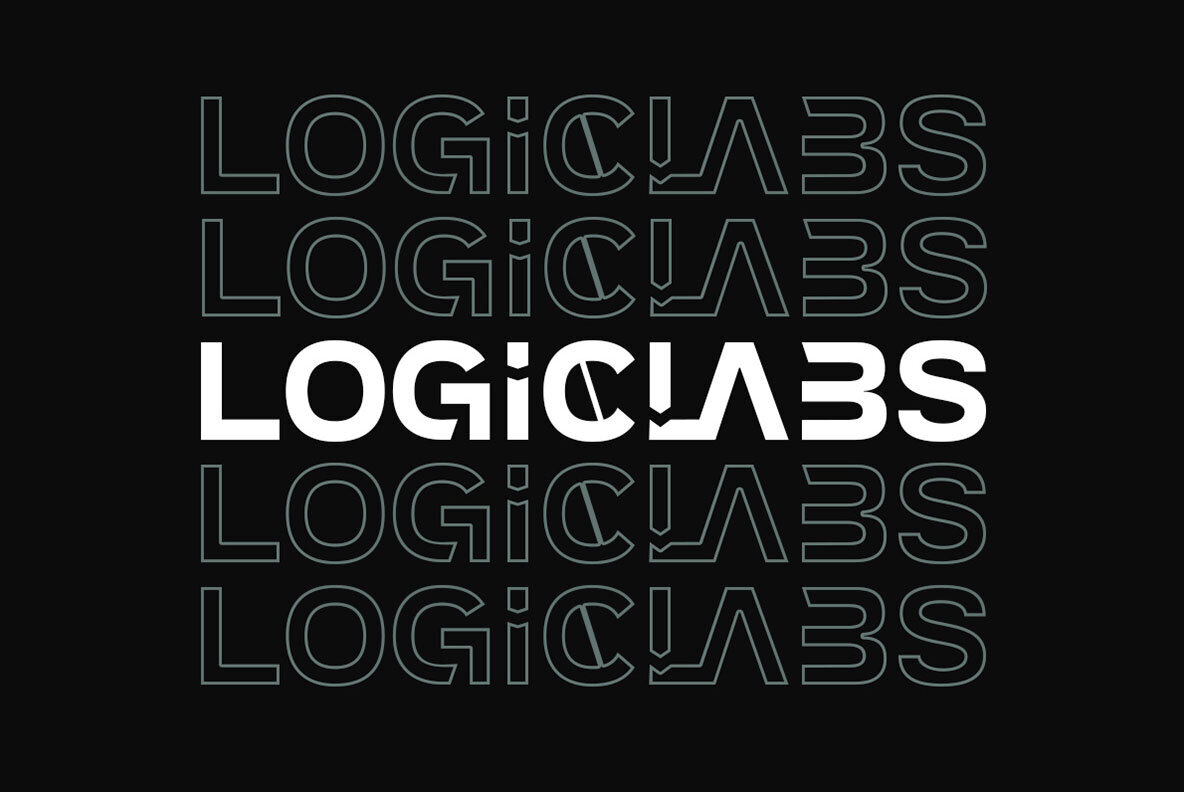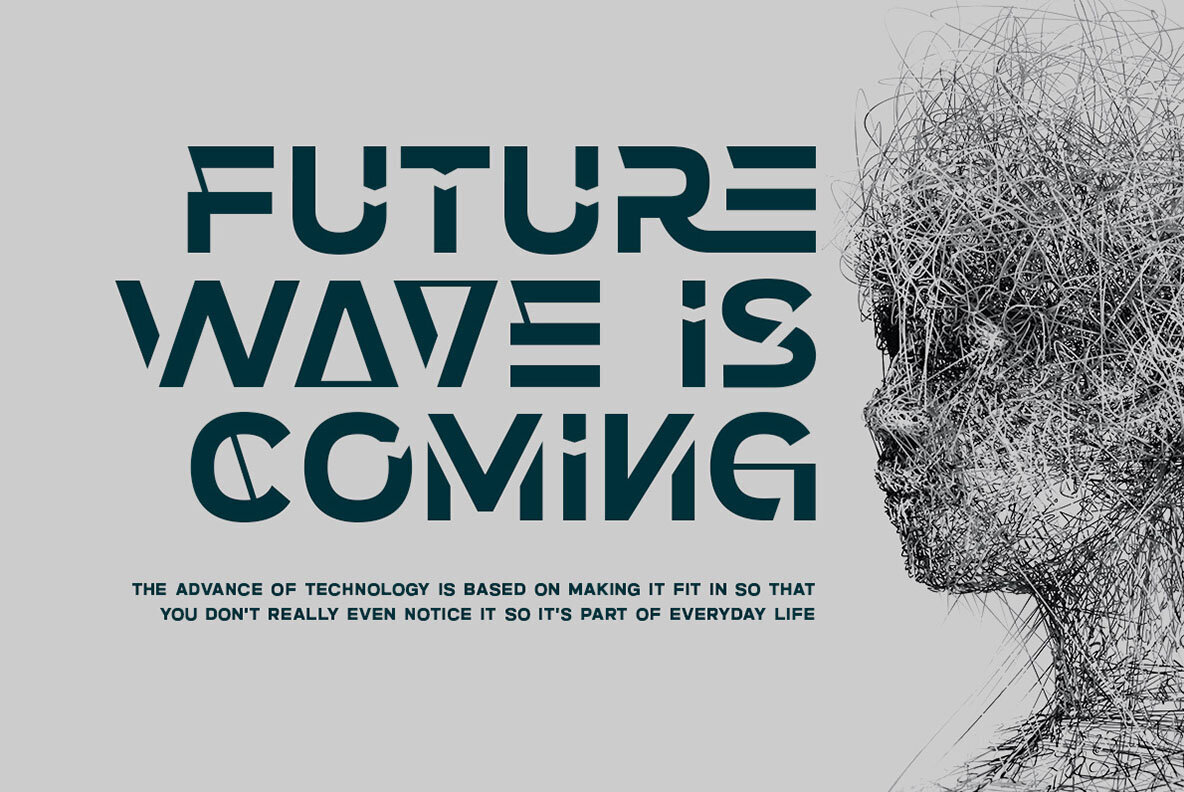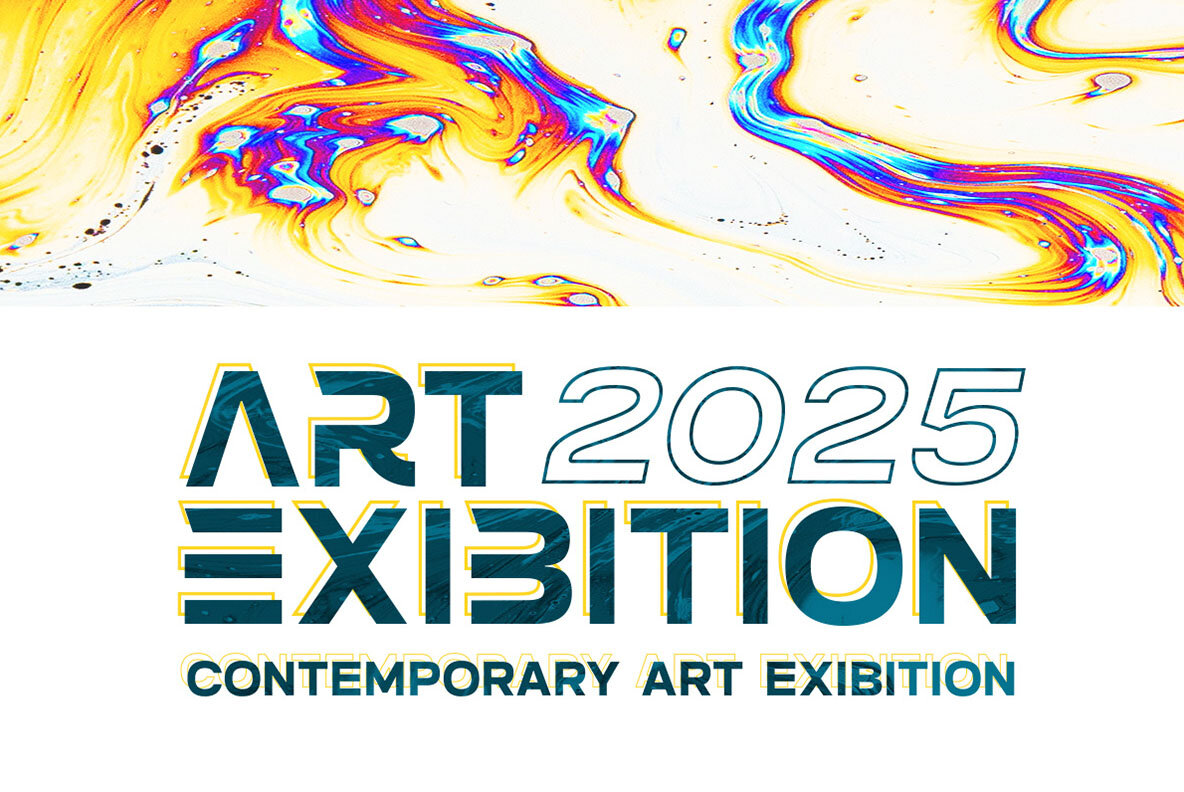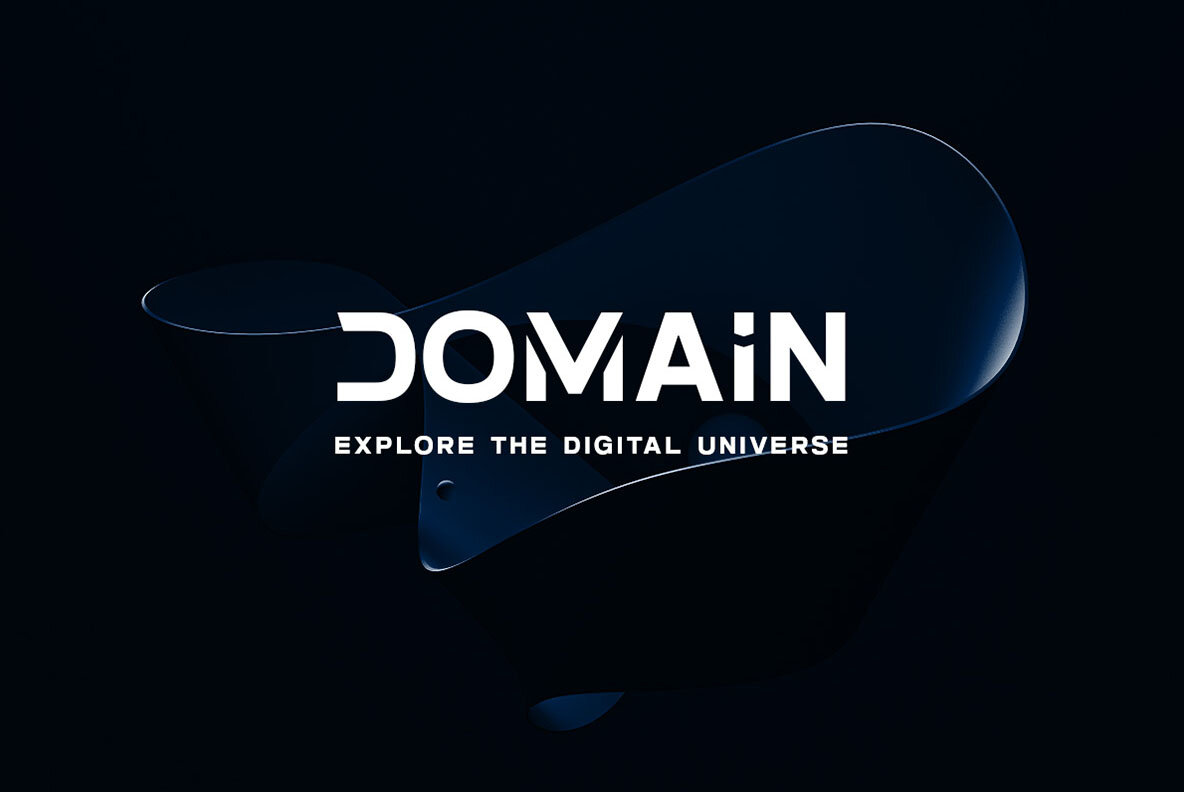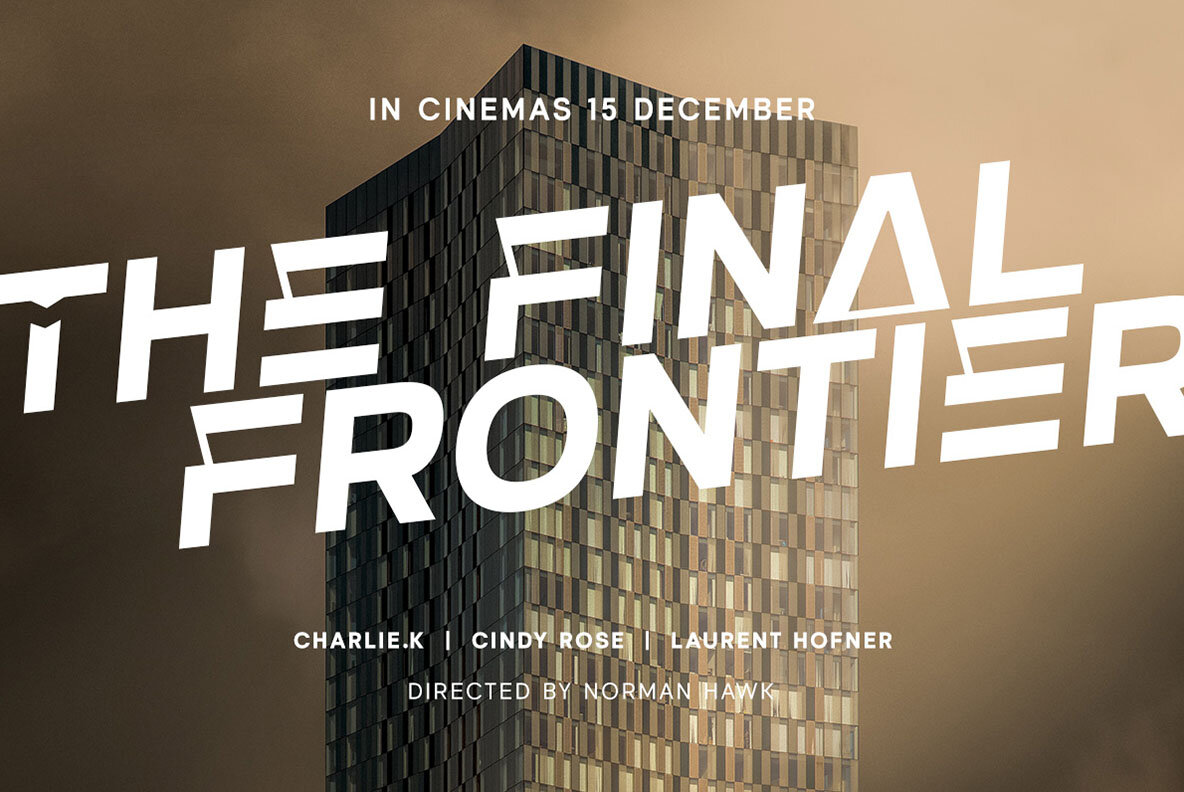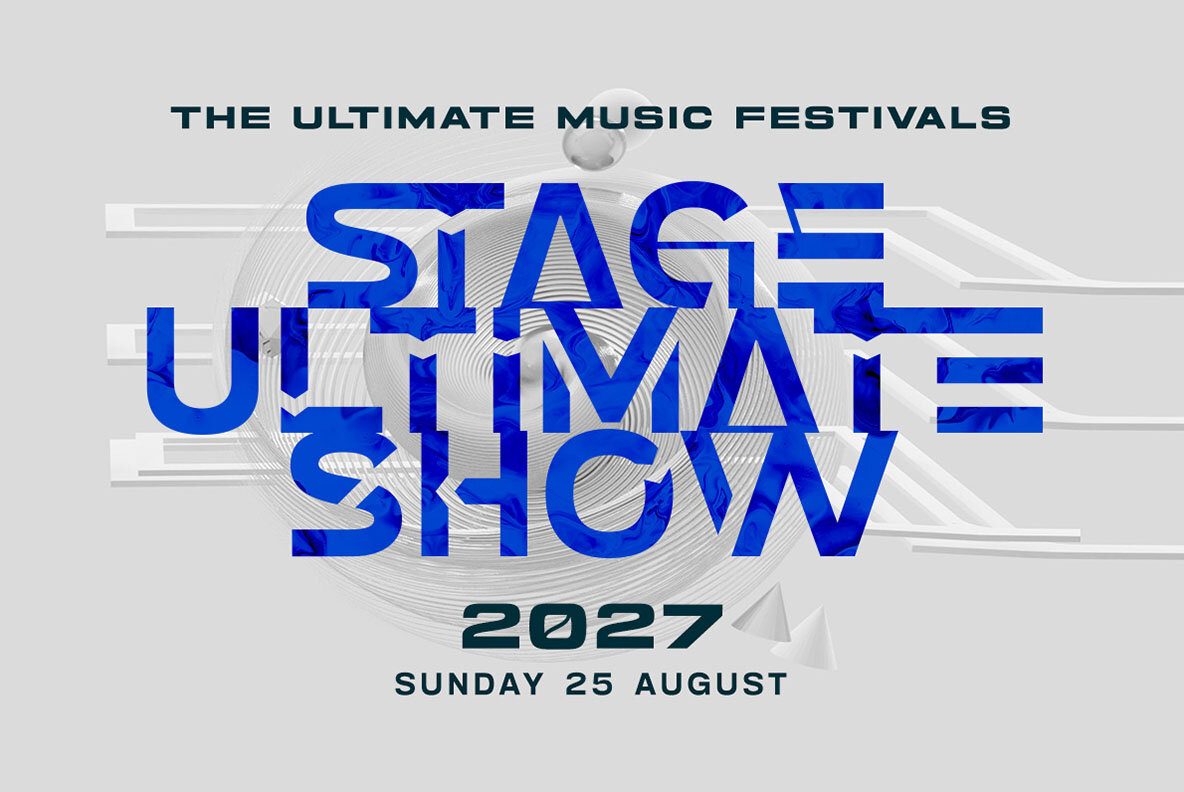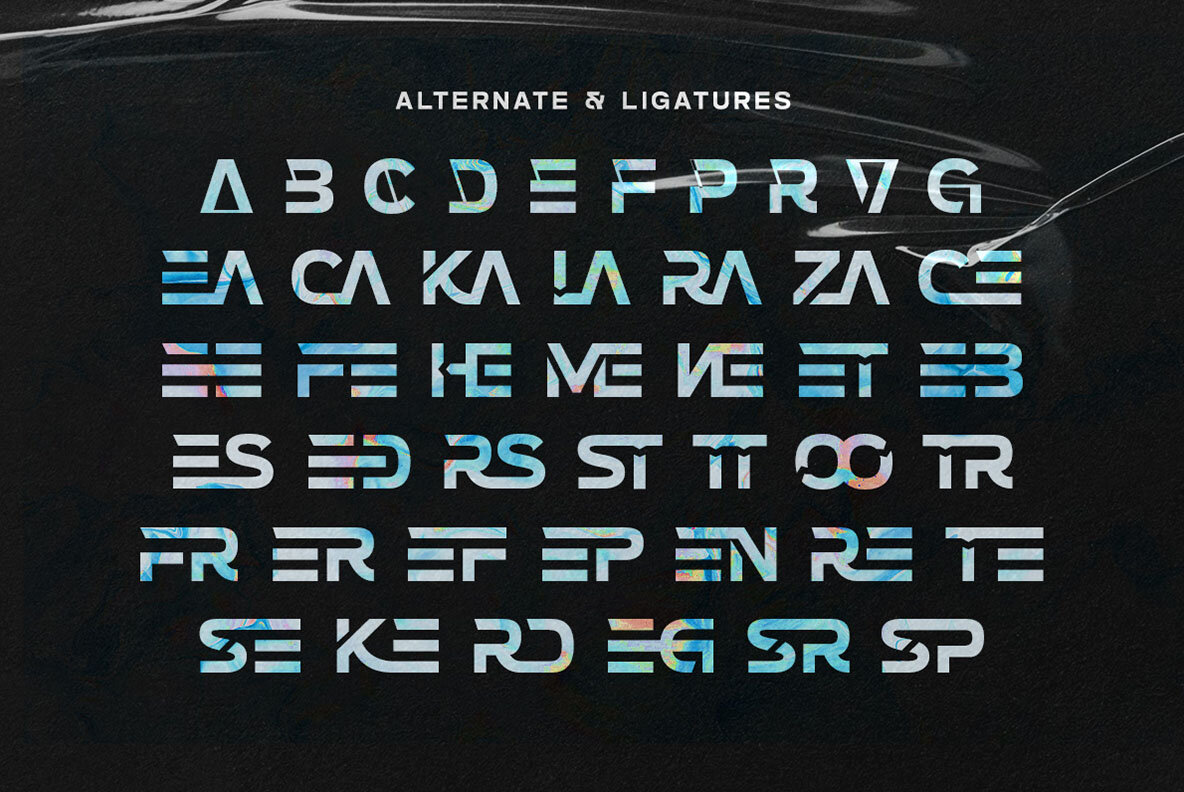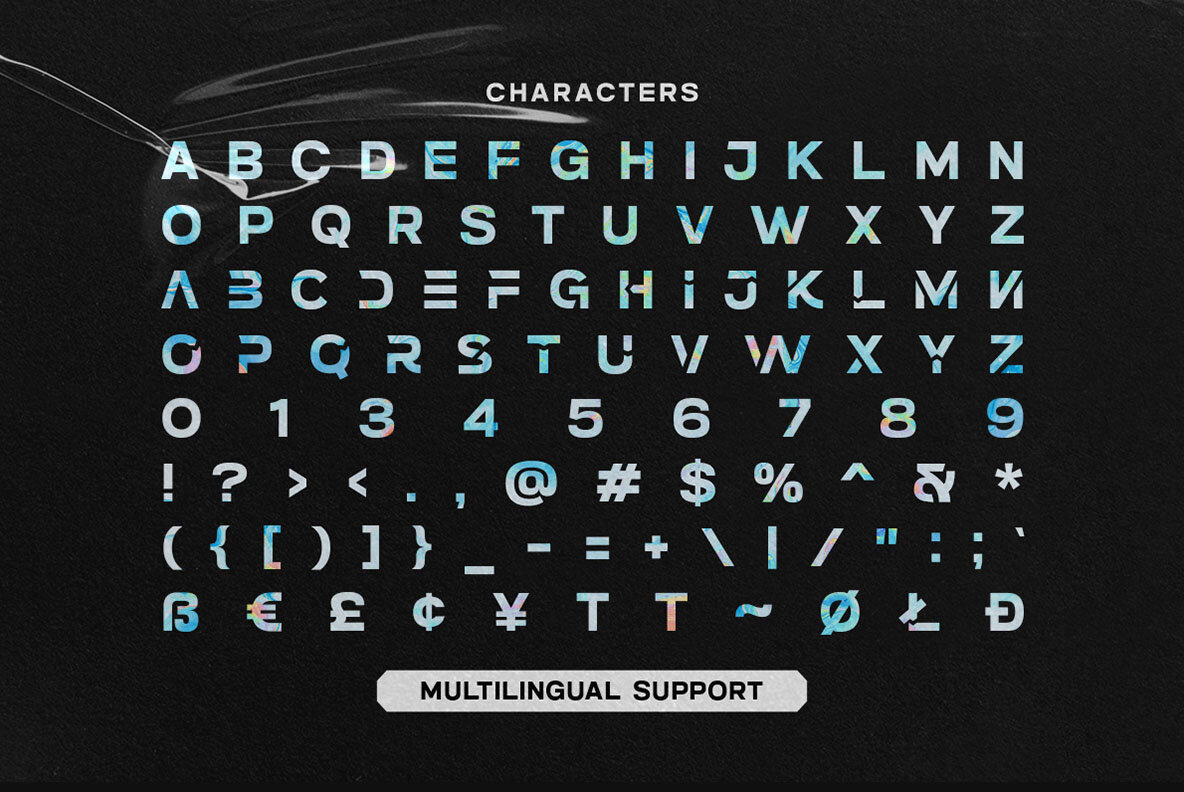
Techno Sphere Font
Techno Sphere is the epitome of modernity and technology in font form. With its bold and futuristic design that convey a sense of precision and efficiency. It comes with 3 style, Regular, Oblique & Inline. With Techno Sphere, your text will stand out as the ultimate embodiment of progress and innovation. This font perfectly made to be applied especially in logo, and the other various formal forms such as invitations, labels, logos, magazines, books, greeting / wedding cards, packaging, fashion, make up, stationery, novels, labels or any type of advertising purpose. Features : - Uppercase & lowercase - Numbers and punctuation - Alternates & Ligatures - Multilingual - PUA encoded